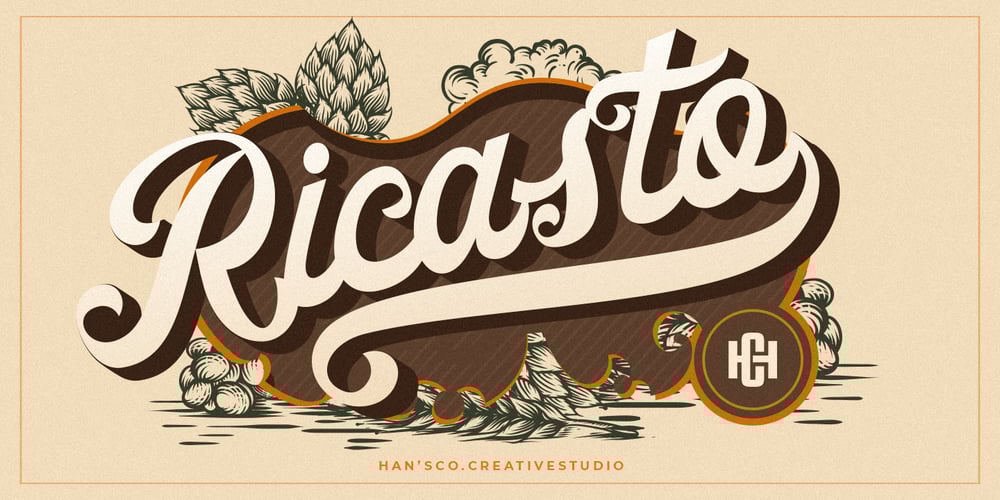
Ricasto Font Family was designed by Burhan Afif and published by HansCo. Ricasto contains 1 styles and family package options. Ricasto is a script typeface with vintage and rustic look! They works perfect for you who needs a typeface for headline, logotype, apparel, invitation, branding, packaging, advertising etc. This typeface is comes in uppercase, lowercase, punctuation, symbols, numerals, stylistic set alternate, ligatures, etc.Comes with a full uppercase, lowercase, numbers and punctuation + standard multilingual support. We recommend using Adobe Illustrator or Photoshop.Tutorial how to Install & use Alternate / Special Character : https://hanscostudio.com/tutorial/Enjoy!